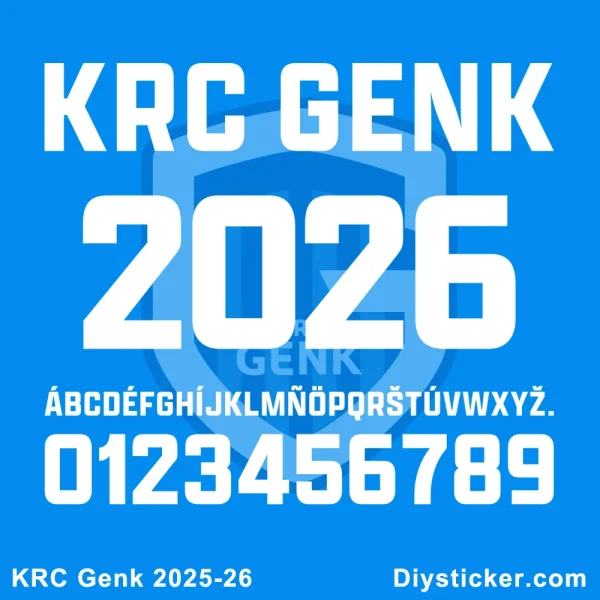
Download the KRC Genk 2025-26 season font in high resolution. This digital package includes the official-style typography for names and numbers used by the Belgian club. Includes installable TTF/OTF files and editable AI, CDR, and PDF vector formats, perfect for kit customization, DIY projects, and professional sports graphics.
Elevate Your Designs with the KRC Genk 2025-2026 Font
Get the complete KRC Genk 2025-26 font set, specifically designed for the upcoming season. This bold, modern typography captures the identity of the Belgian Pro League giants, making it an essential tool for graphic designers, kit collectors, and fans.